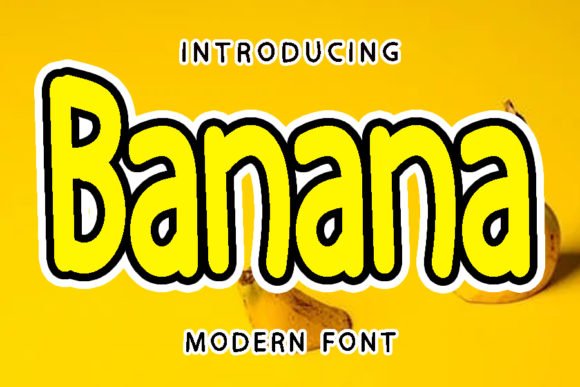
Who hasn’t felt the thrill of discovering the perfect font for their next project? The excitement of seeing a design come together, knowing that the right typography is the key to making it truly special. That’s exactly what happened when I stumbled upon the Banana Font. Its cute and fresh display style immediately caught my eye, and I couldn’t wait to see how it would brighten up my designs.
The Banana Font is a delightful addition to any project, bringing a touch of whimsy and playfulness that’s hard to resist. Whether you’re working on a children’s book, a food blog, or a social media campaign, this font is sure to add a smile to your audience’s face. As a designer, having access to versatile and engaging fonts like the Banana Font can be a game-changer, helping you create designs that truly stand out.
Banana Font Key Features
- Font Family: Banana Font is a unique, custom-designed font family with a distinctive, curved shape reminiscent of a banana.
- Character Set: Includes a wide range of characters, including uppercase and lowercase letters, numbers, punctuation, and special characters.
- Unique Characteristics: Banana Font features a playful, curved design that adds a touch of whimsy and fun to any text, making it perfect for creative projects, branding, and advertising.
Designer Review: Banana Font
Overall, I’d say the Banana Font is an interesting choice for designers looking to add a playful twist to their projects. Here’s what I like and don’t like about it.
- The unique, irregular letterforms add a touch of whimsy and personality to text.
- The font is highly legible, making it suitable for body text and headlines.
- The banana-inspired design is sure to spark conversation and grab attention.
- The font may not be suitable for formal or professional projects, as its playful nature can come across as unprofessional.
- The irregular letterforms can make it difficult to read in certain contexts, such as in small sizes or when used extensively.
The Banana Font is a fun and quirky addition to any designer’s toolkit. While it may not be suitable for all projects, it’s a great choice for those looking to add some personality and whimsy to their work. With careful use, the Banana Font can add a touch of magic to even the most mundane projects.
Tips for Getting the Most Out of Banana Font
The Banana Font is a fun and playful font that can add a touch of whimsy to your designs. Here are a few tips for getting the most out of it:
- Use the Banana Font for headings and titles to add a pop of color and personality.
- Pair the Banana Font with a bold or sans-serif font for a fun and playful contrast.
- Experiment with different font sizes and styles to create a unique